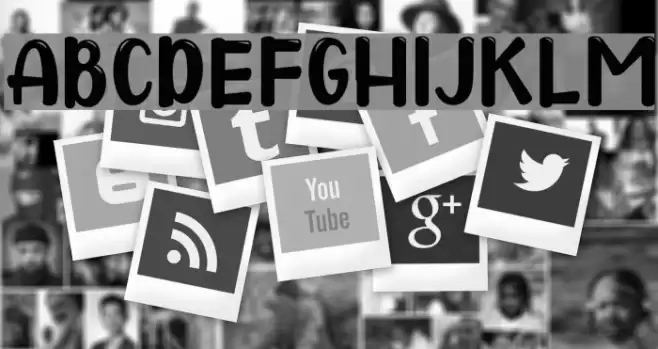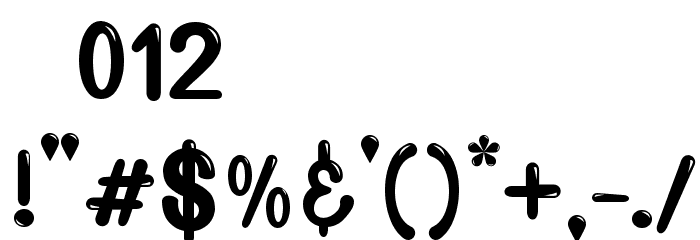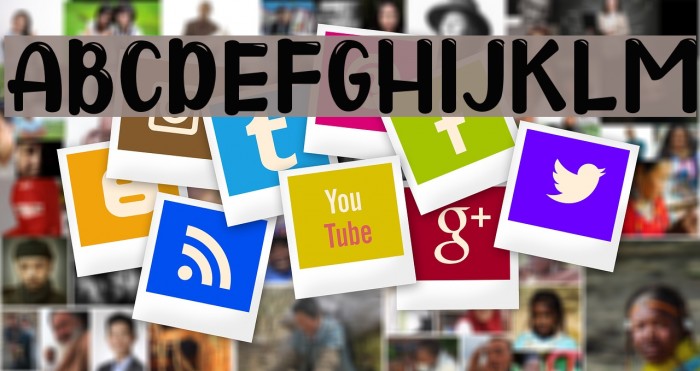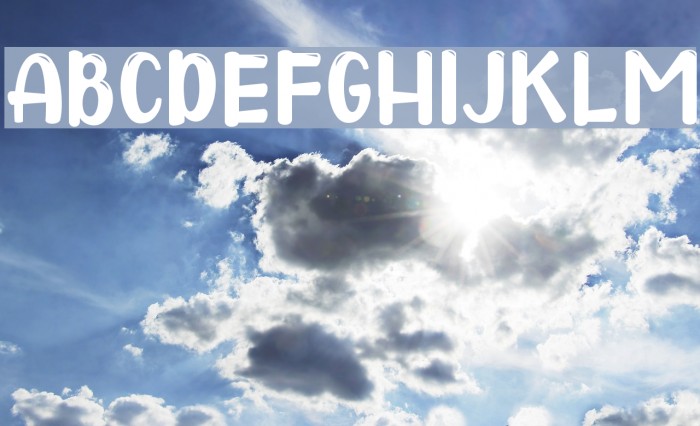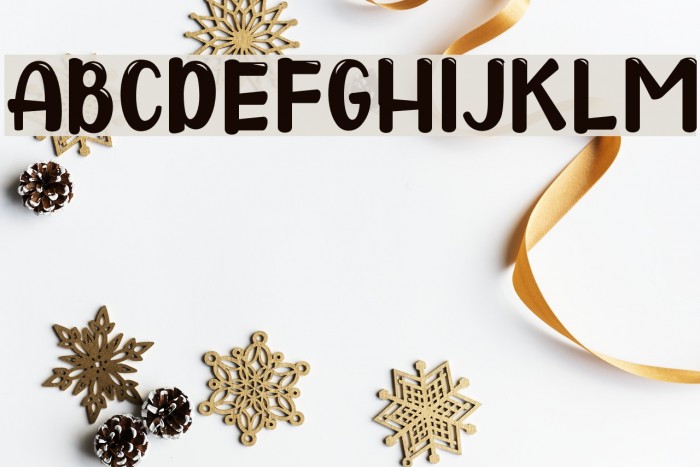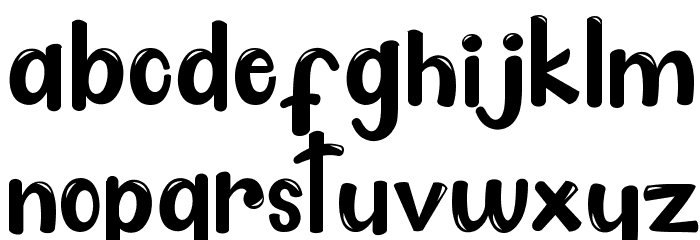
The King Font
The King Description
This playful and bold font features rounded edges and a thick, uniform stroke that gives it a friendly and approachable appearance. The characters are slightly condensed, contributing to a compact look that maintains readability. The uppercase letters are robust and prominent, while the lowercase letters have a whimsical charm, particularly with the unique styling of letters like 'f' and 't'. The numerals are consistent with the overall style, ensuring a cohesive look across all text. Special characters are well-integrated, maintaining the font's playful aesthetic. This font is ideal for projects that require a fun and engaging visual element.
A bold, playful font with rounded edges and a friendly appearance from Uncategorized fonts.
- Proposed Projects: Ideal for children's books, playful branding, posters, and social media graphics.
- Overall Style: Playful